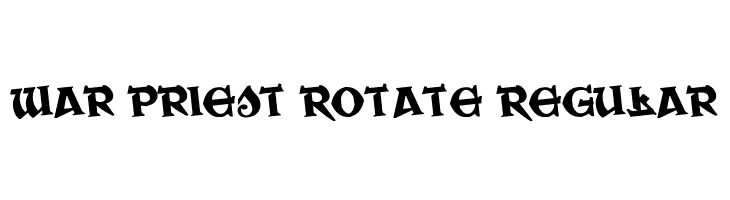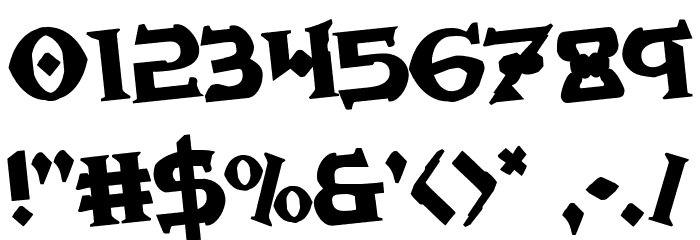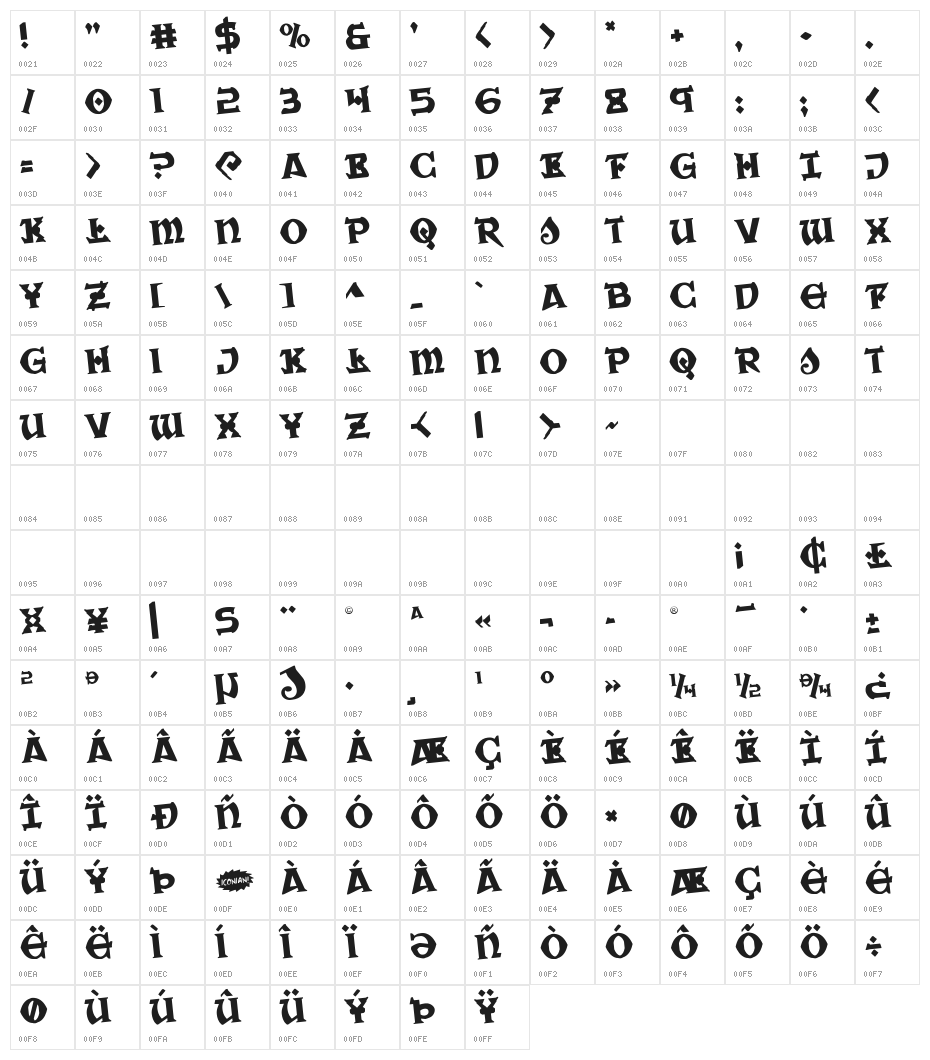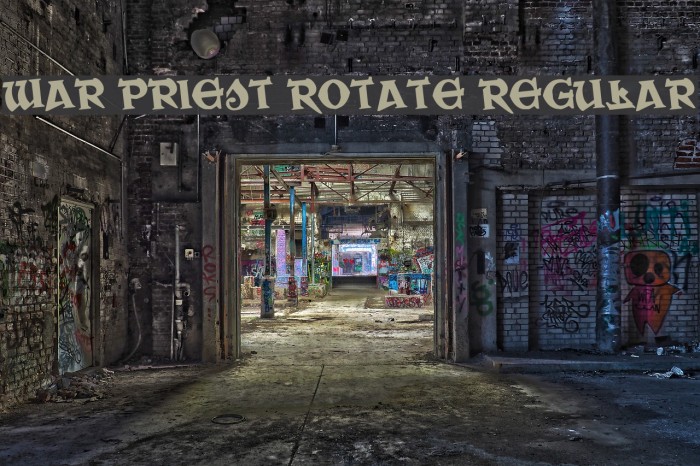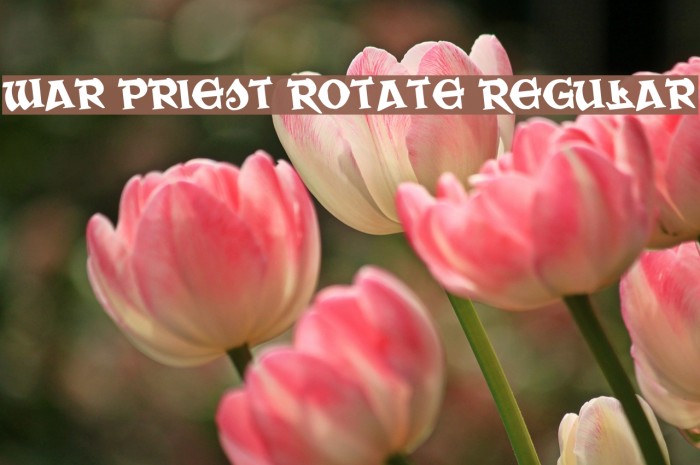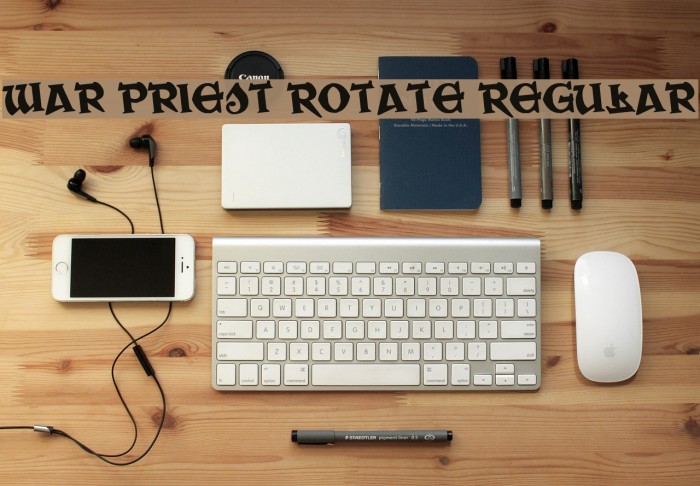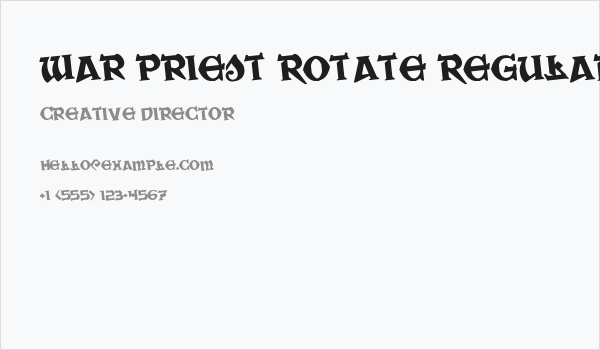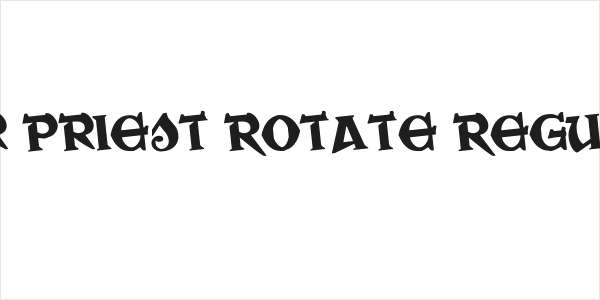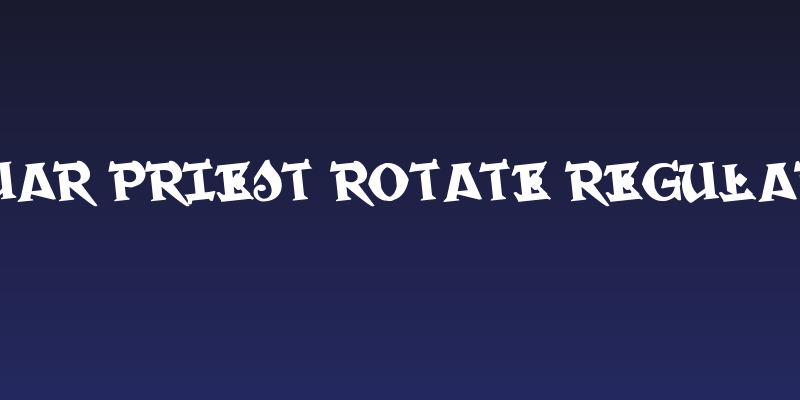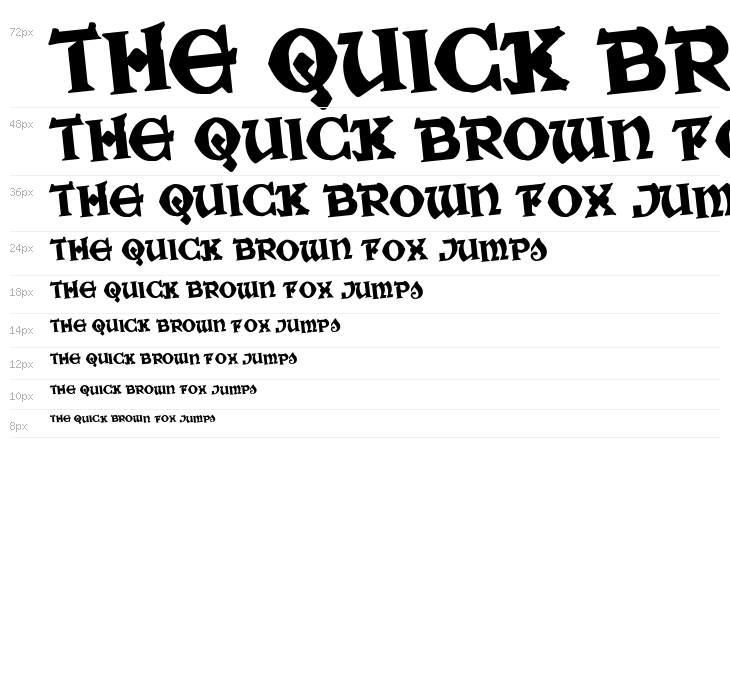
War Priest Rotate Regular Font
War Priest Rotate Regular Description
This font features a bold and dynamic design with a medieval and gothic influence. The characters are heavily stylized with sharp, angular edges and a slightly rotated appearance, giving them a unique and aggressive look. The uppercase and lowercase letters maintain a consistent style, with the uppercase being more pronounced. Numbers and special characters follow the same design ethos, ensuring uniformity across all glyphs. The font's strong presence makes it ideal for projects that require a dramatic and impactful visual statement.
| Overall Style | Gothic, Medieval, Decorative |
| Proposed Projects | Ideal for video game titles, movie posters, band logos, and any project needing a dramatic, medieval aesthetic. |